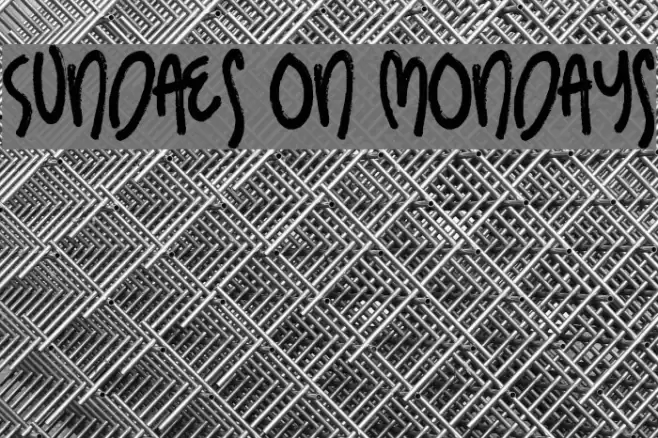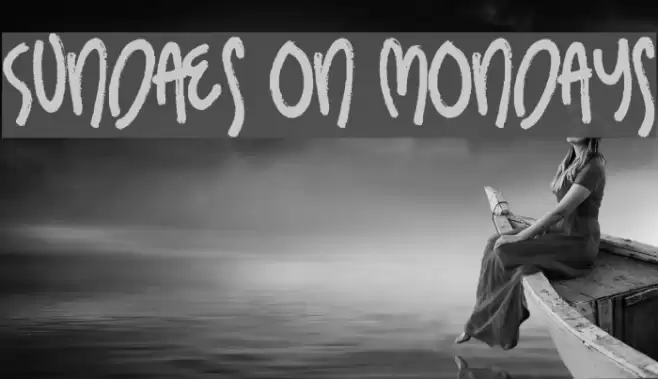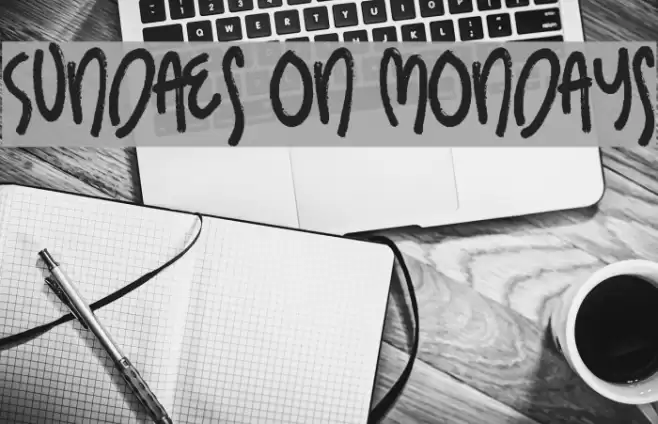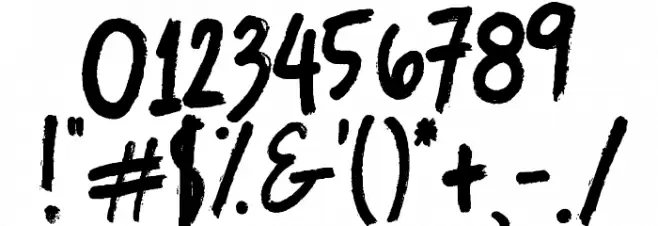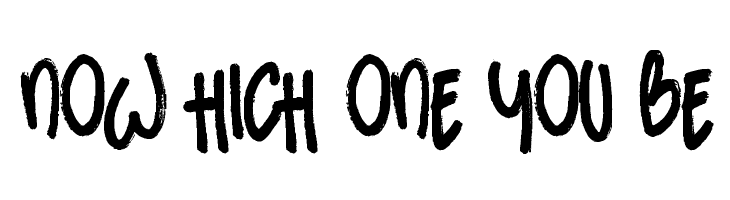
Sundaes on Mondays Font
Sundaes on Mondays Description
This font exudes a playful and energetic vibe, characterized by its bold, hand-drawn appearance. The letters are slightly irregular, adding a whimsical touch that suggests a casual, informal style. The strokes are thick and dynamic, with a brush-like texture that gives the font a lively and spontaneous feel. This font is perfect for projects that require a fun and approachable aesthetic, such as children's books, party invitations, or playful branding. The characters are well-spaced, maintaining readability while enhancing the font's overall charm.
A bold, hand-drawn font with a playful and energetic style from Handwritten fonts.
- Proposed Projects: Ideal for children's books, party invitations, playful branding, and casual posters.
- Overall Style: Playful